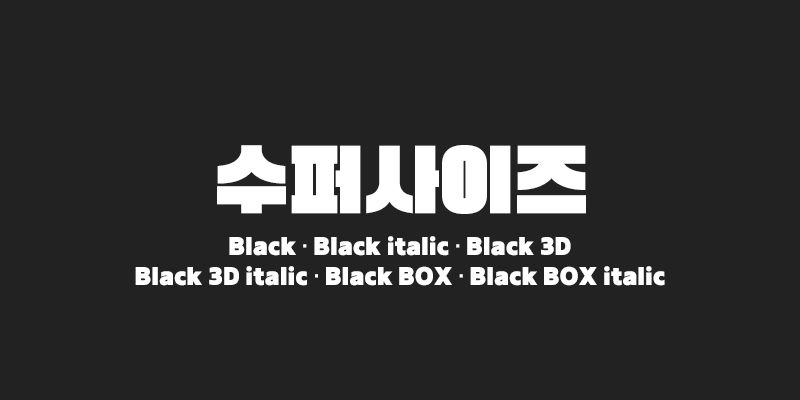
210 Supersize Font Free Download is a bold, oversized display typeface designed to grab attention with confidence and flair. With its chunky, rounded forms and playful proportions, 210 Supersize is perfect for posters, headlines, branding, packaging, and any design that needs a loud, fun, and expressive typographic voice.
Its exaggerated letter shapes and soft edges give it a friendly, approachable feel—ideal for children’s content, food products, entertainment brands, and social media graphics. The font supports both Hangul (Korean) and Latin characters, offering full versatility for bilingual or international designs.